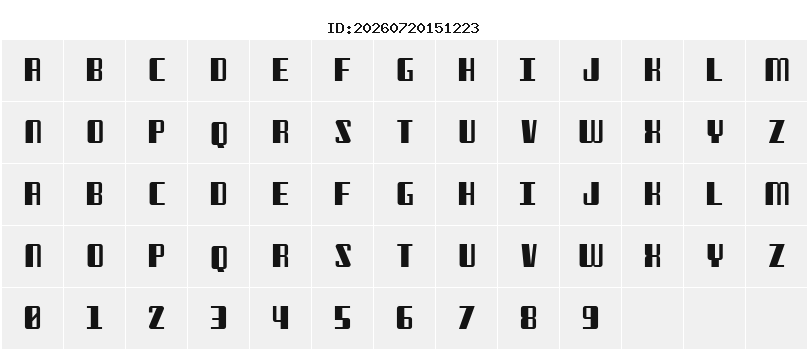
• Font Name: Freezer BTN
• Full Font Name: Freezer BTN
Freezer BTN.ttf is a modern, elegant sans-serif font designed for ultimate readability and visual harmony. Perfect for branding, headlines, web design, and print materials.